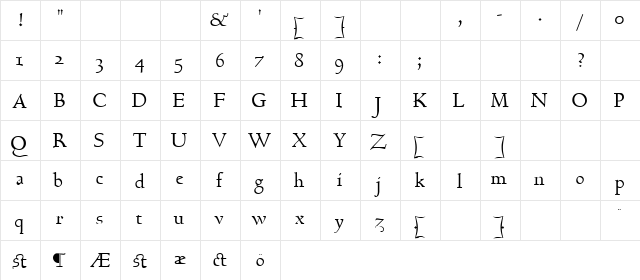
Jessica 1 Italic
Design Context for Jessica 1 Typeface
Jessica 1 offers clean, dependable letterforms without strong stylistic allegiance, making it a practical choice for designers who need flexibility. The slanted form adds forward momentum and visual energy.
Pro Tip: Use Jessica 1 for emphasis, pull quotes, and subheadings where its slanted energy can add rhythm to the layout.